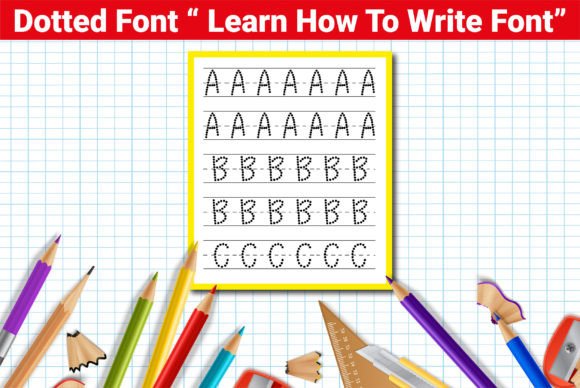
Introduction to My Dotted Font
As I sat at my desk, surrounded by scraps of paper and pens, I was on a mission to create the perfect DIY alphabet tracing sheet for my little one. I wanted something that would make learning to write fun and engaging, and that’s when I stumbled upon the perfect solution – the My Dotted Font. This beautiful, high-quality font is not only perfect for kids, but also for anyone looking to add a friendly touch to their creative projects.
With its transparent background and free download option, My Dotted Font has become a valuable design resource for many creatives. Whether you’re working on a back-to-school project, a journal, or social media posts, this font is sure to bring your ideas to life. Its versatility and high quality make it a must-have for any designer looking to elevate their work.
Key Features of My Dotted Font
- Unique Dotted Design: My Dotted Font features a distinctive dotted pattern, making it perfect for creative projects that require a touch of whimsy.
- High-Quality Design: With its transparent background and crisp, clear design, My Dotted Font is ideal for use in a variety of contexts, from print materials to digital displays.
- Perfect for Creative Projects: My Dotted Font is an excellent design resource for anyone working on a creative project, from graphic designers to crafters and DIY enthusiasts.
Honest Review: My Dotted Font
I recently stumbled upon My Dotted Font, and I must say it’s been a game-changer for my creative projects. This free download has become a go-to design resource for me, offering a unique and high-quality style that elevates any design.
What works well is the level of detail in the font. The transparent background allows for seamless integration with any design, while the high-quality design ensures that the text looks crisp and clear. I’ve used My Dotted Font for various projects, from logos to social media graphics, and it never fails to impress.
- Unique and stylish design
- High-quality design ensures crisp and clear text
However, I do have a few minor issues with My Dotted Font. The font can be a bit tricky to read in certain situations, especially when the text is small or the background is busy. Additionally, some of the characters may not be compatible with all operating systems.
Overall, I’m thoroughly impressed with My Dotted Font. Its versatility, unique style, and high-quality design make it an excellent addition to any designer’s toolkit. While it’s not perfect, the benefits far outweigh the limitations.
Getting the Most Out of My Dotted Font
For the best results, use My Dotted Font on a transparent background to create a seamless design. You can also experiment with different font sizes and styles to achieve a unique look. Additionally, consider using My Dotted Font in combination with other design resources, such as graphics and images, to create a cohesive and visually appealing design.
My Dotted Font is commonly used in creative projects, such as social media graphics, presentations, and documents. It’s also a popular choice for designers and artists who need a unique, high-quality font for their designs. Whether you’re working on a personal or professional project, My Dotted Font is a valuable design resource that’s sure to impress.